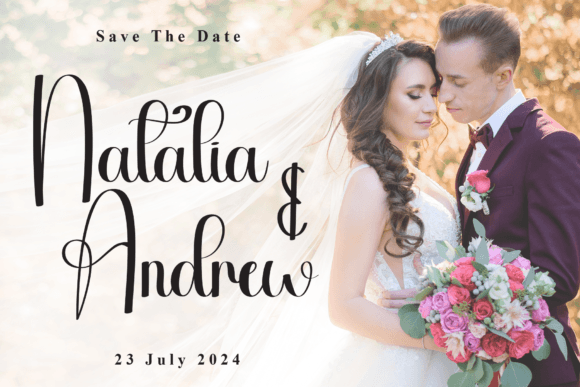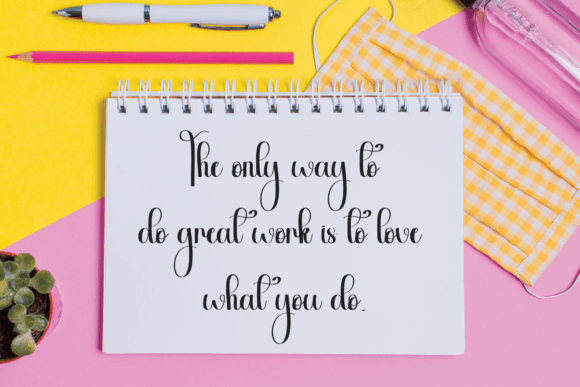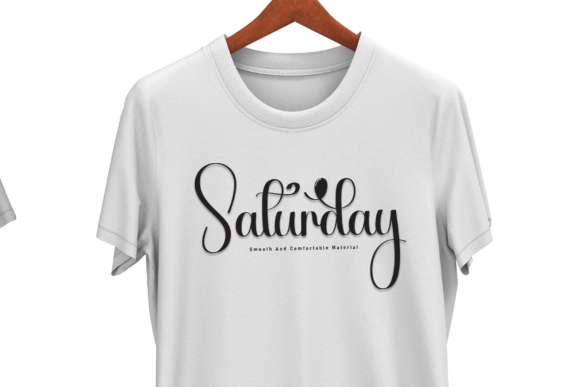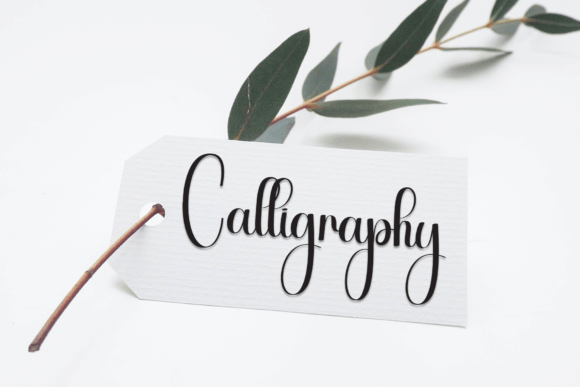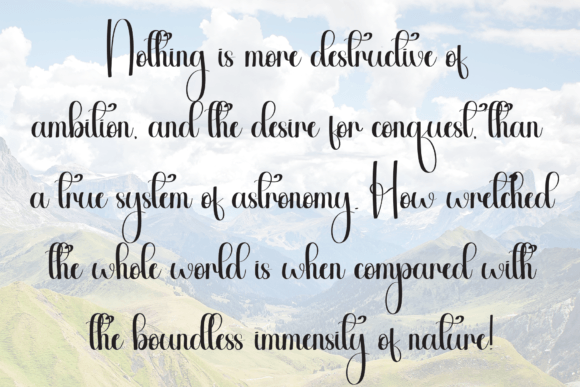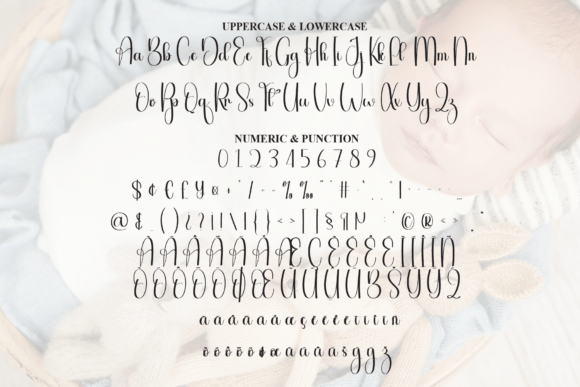
Babyboy Font: The Perfect Casual Handwritten Style for Your Designs
Are you looking for a font that can add a relaxed and friendly vibe to your designs? Look no further than the Babyboy font. This casual handwritten font is perfect for personal projects, social media, and invitations, bringing an effortless and charming touch to any design. With its natural, flowing strokes, Babyboy font is ideal for designers and crafters who want to add warmth and authenticity to their work.
What is Babyboy Font?
Babyboy font is a type of casual handwritten font that is designed to capture a relaxed and friendly vibe. It is characterized by its natural, flowing strokes that give it a unique and charming appearance. The font is perfect for designs that require a personal touch, such as invitations, social media posts, and personal projects.
Key Features of Babyboy Font
- Casual and Handwritten: Babyboy font has a casual and handwritten style that makes it perfect for designs that require a personal touch.
- Natural and Flowing Strokes: The font features natural and flowing strokes that give it a unique and charming appearance.
- Relaxed and Friendly Vibe: Babyboy font is designed to capture a relaxed and friendly vibe, making it perfect for designs that require a warm and approachable tone.
- Effortless and Charming: The font brings an effortless and charming touch to any design, making it perfect for personal projects, social media, and invitations.
Uses of Babyboy Font
Babyboy font is a versatile font that can be used in a variety of designs, including:
- Personal Projects: Babyboy font is perfect for personal projects, such as scrapbooking, journaling, and crafting.
- Social Media: The font is ideal for social media posts, such as Instagram, Facebook, and Twitter.
- Invitations: Babyboy font is perfect for invitations, such as birthday parties, baby showers, and weddings.
- Stationery: The font can be used to create custom stationery, such as greeting cards, thank-you cards, and letterheads.
Benefits of Using Babyboy Font
Using Babyboy font in your designs has several benefits, including:
- Warmth and Authenticity: The font adds warmth and authenticity to any design, making it perfect for personal projects and social media.
- Easygoing Style: Babyboy font has an easygoing style that makes it perfect for designs that require a relaxed and friendly vibe.
- Versatility: The font is versatile and can be used in a variety of designs, from personal projects to social media and invitations.
Tips for Using Babyboy Font
Here are some tips for using Babyboy font in your designs:
- Pair with Other Fonts: Babyboy font can be paired with other fonts to create a unique and interesting design.
- Use in Combination with Images: The font can be used in combination with images to create a visually appealing design.
- Experiment with Colors: Babyboy font can be used with a variety of colors to create a design that matches your brand or personal style.
In conclusion, Babyboy font is a casual handwritten font that captures a relaxed and friendly vibe with its natural, flowing strokes. It is perfect for personal projects, social media, and invitations, bringing an effortless and charming touch to any design. With its easygoing style, Babyboy font adds warmth and authenticity to any design, making it a great choice for designers and crafters.
Whether you’re looking to create a custom invitation, social media post, or personal project, Babyboy font is a great choice. Its versatility and charm make it a font that can be used in a variety of designs, and its easygoing style makes it perfect for designs that require a relaxed and friendly vibe.
So why not give Babyboy font a try? With its natural, flowing strokes and charming appearance, it’s sure to add a touch of warmth and authenticity to any design.